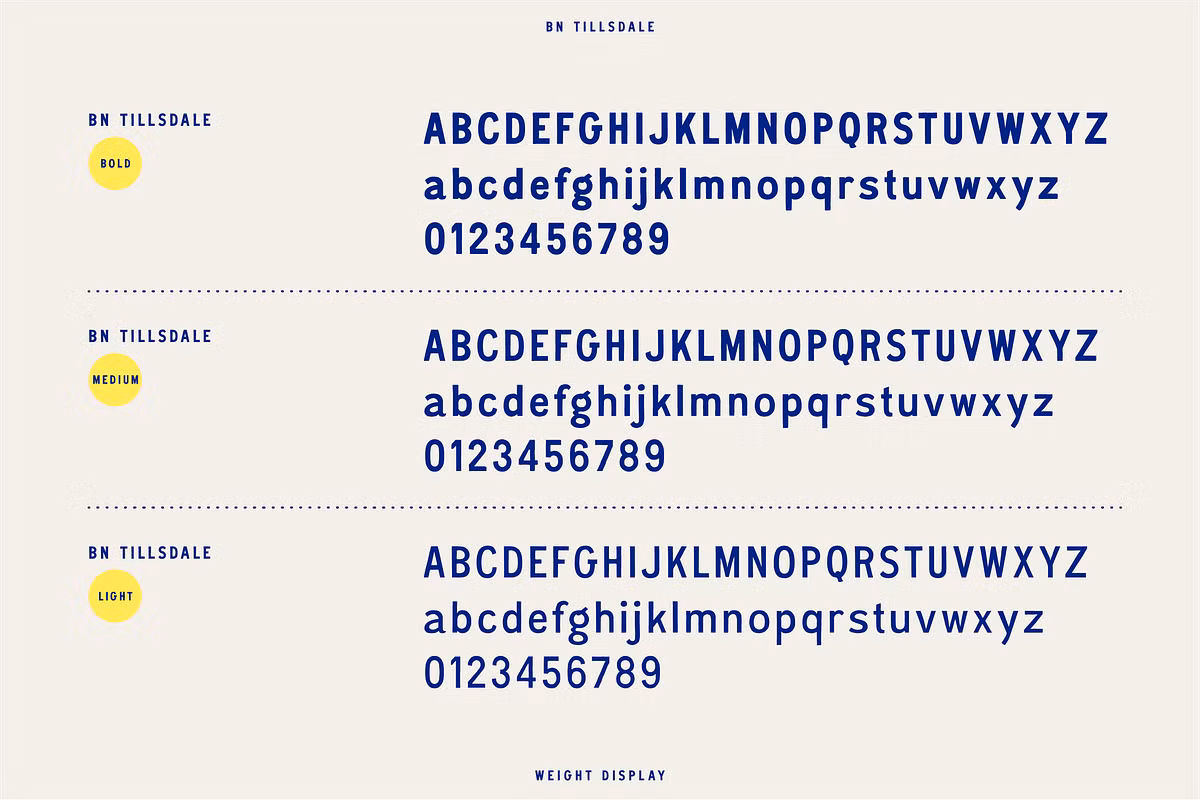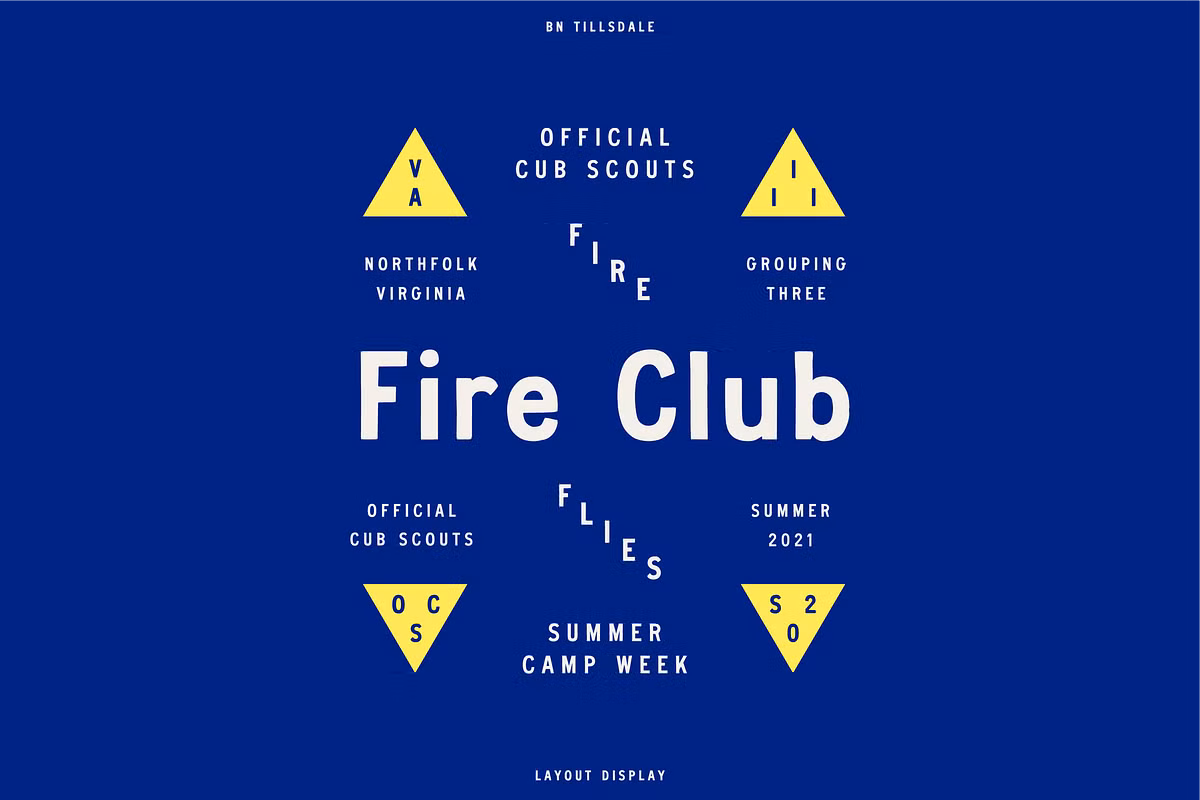
BN Tillsdale: Versatile Hand-Drawn Sans Serif Font Family
BN Tillsdale is a special kind of font, called a hand-drawn sans serif typeface. It’s really good at standing out from the crowd. The people who made it, made sure it was just right – not too wide, not too narrow. They paid close attention to all the little details, which makes it perfect for lots of different design projects. You can use it to make something really eye-catching, like a big display or a logo. Or, you can use it to make something people will read for a while, like a story or an article. Either way, BN Tillsdale is a great choice.
BN Tillsdale has a really nice, hand-drawn look that makes it feel personal and unique. The letters are semi-condensed, which gives them a modern feel without making them hard to read. This font is great for designers who like to mix things up and use a style that’s both casual and professional at the same time. The fact that it’s hand-drawn gives it a lot of character, so you can use it for fun, playful projects or more serious ones – it’s really versatile.
Whether you’re working on something that needs to be professional and polished or something more laid-back and creative, BN Tillsdale is a great choice because it can fit in with a lot of different styles and still look really good. BN Tillsdale is a really versatile font that works well in lots of different design situations.
Character Sets
BN Tillsdale has three different weights, which means you can use it in lots of different ways. Each weight has the same friendly, hand-drawn feel, but they’re all a bit different. You can use them to add emphasis to your words, or to create a certain mood. One thing to keep in mind, though, is that right now, BN Tillsdale only has the basic characters – it doesn’t have any special accents or characters that you might need if you’re writing in a language other than English. This might limit how you can use it, especially if you need to write in multiple languages.
BN Tillsdale has a lot to offer when it comes to design, even with its limitations. The characters it includes are more than enough for most design projects. One of the best things about BN Tillsdale is how consistent it looks, no matter which version you use – light, regular, or bold. This means your text will always look put together and professional.
BN Tillsdale shines in a variety of applications, making it a must-have for any designer’s toolkit. Here are some specific use cases to consider:
- Display Layouts: The unique characteristics of BN Tillsdale make it perfect for eye-catching display layouts. Use it for headlines in posters, flyers, or social media graphics to grab attention.
- Logo Design: The playful yet professional style of BN Tillsdale lends itself well to logo design. Its hand-drawn aesthetic can help establish a brand’s identity, making it memorable and distinctive.
BN Tillsdale is not just for show, it’s also great for longer pieces of writing. The thing that makes it really useful is how easy it is to read, so your writing is always clear, whether it’s in a book or on a screen.
Pairing fonts can elevate your design projects, and BN Tillsdale is no exception. Here are some excellent pairing suggestions:
- With Classic Serif Fonts: When you pair BN Tillsdale with a classic serif font, like Georgia or Times New Roman, you get a really nice contrast. The fun, playful feel of BN Tillsdale works well with the more traditional feel of serif fonts, making it perfect for a design that’s both modern and elegant.
- With Other Sans Serif Fonts: To create a more cohesive look, you can pair BN Tillsdale with another sans serif font, such as Helvetica or Montserrat.
- With Script Fonts: If you want to emphasize creativity and flair, consider pairing BN Tillsdale with a script font like Pacifico or Dancing Script.
This combination is excellent for projects that require a whimsical touch.
BN Tillsdale is a really versatile font that can add a special touch to any design project. It’s a hand-drawn sans serif font family that comes in three different weights, and its semi-condensed form is really well balanced. This makes it perfect for all sorts of applications, from big display layouts to longer pieces of content.
One thing to note is that it doesn’t have foreign accents and characters just yet, but its unique style and the ways it can be used make it a great choice for both professional and personal projects. So, whether you’re creating a logo, making a poster, or writing something that needs to grab people’s attention, BN Tillsdale is a font that can help take your work to the next level and really engage your audience.